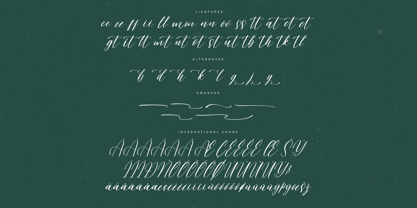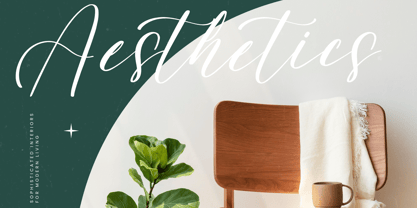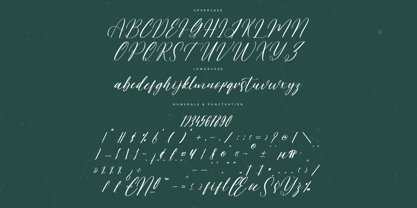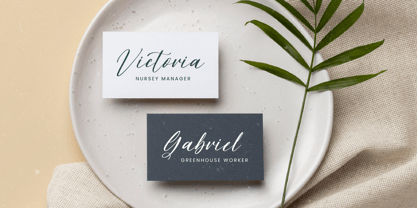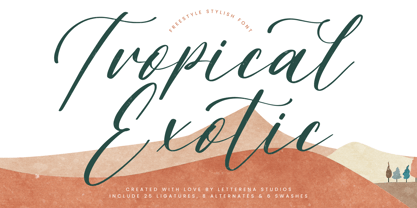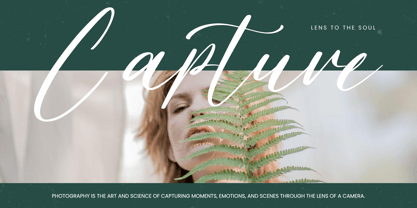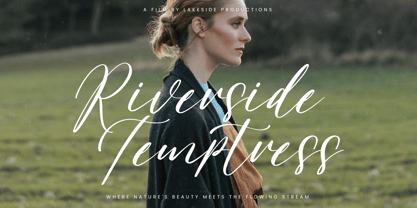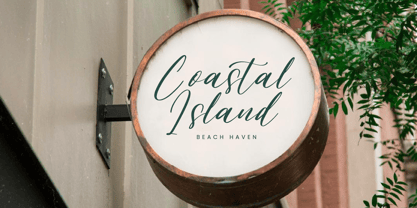
Tropical Exotic
by Letterena Studios
The Tropical Exotic Font Family was designed by Heru Utama Putra and published by Letterena Studios. Tropical Exotic contains 2 styles and family package options. More about this family
Tropical Exotic - Freestyle Stylish Font , from Letterena, is a Luxury Script font, suitable for any projects such as: logos, branding projects, homeware designs, product packaging, mugs, quotes, posters, shopping bags, t-shirts, book covers, name card, invitation cards, greeting cards, label, photography, watermark, special events, and all your other luxury and beautiful projects that need a Luxury Script taste.